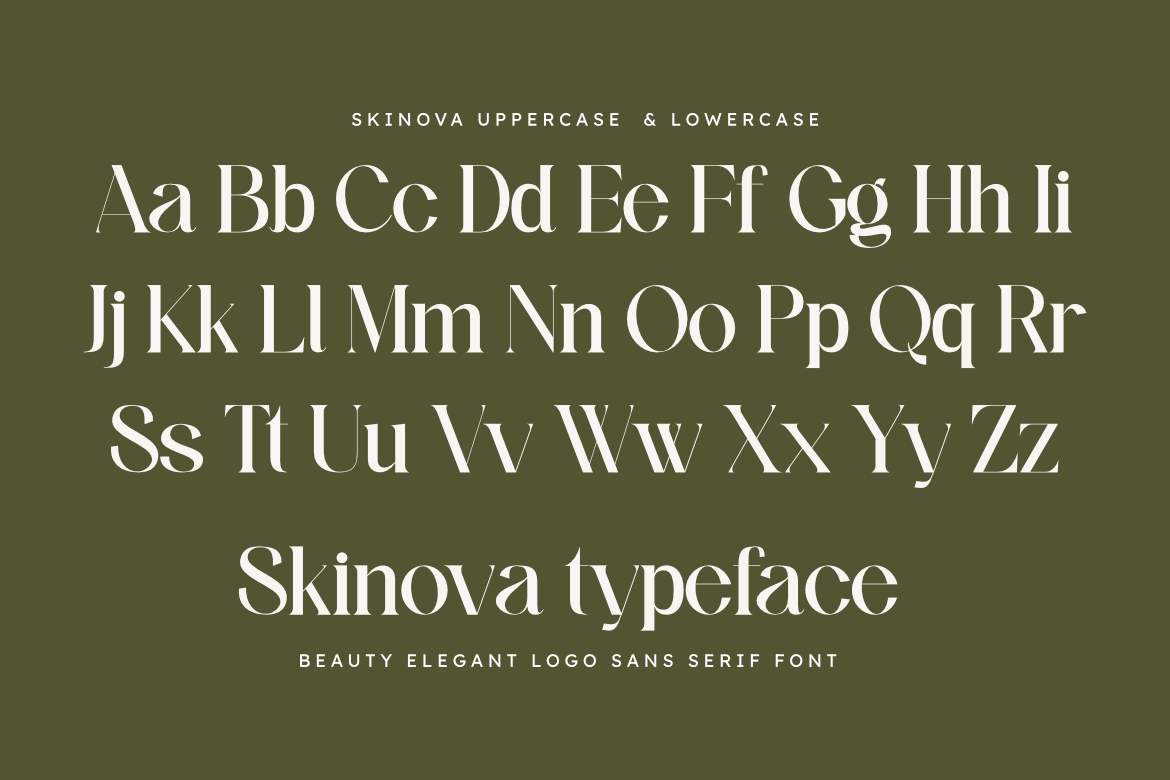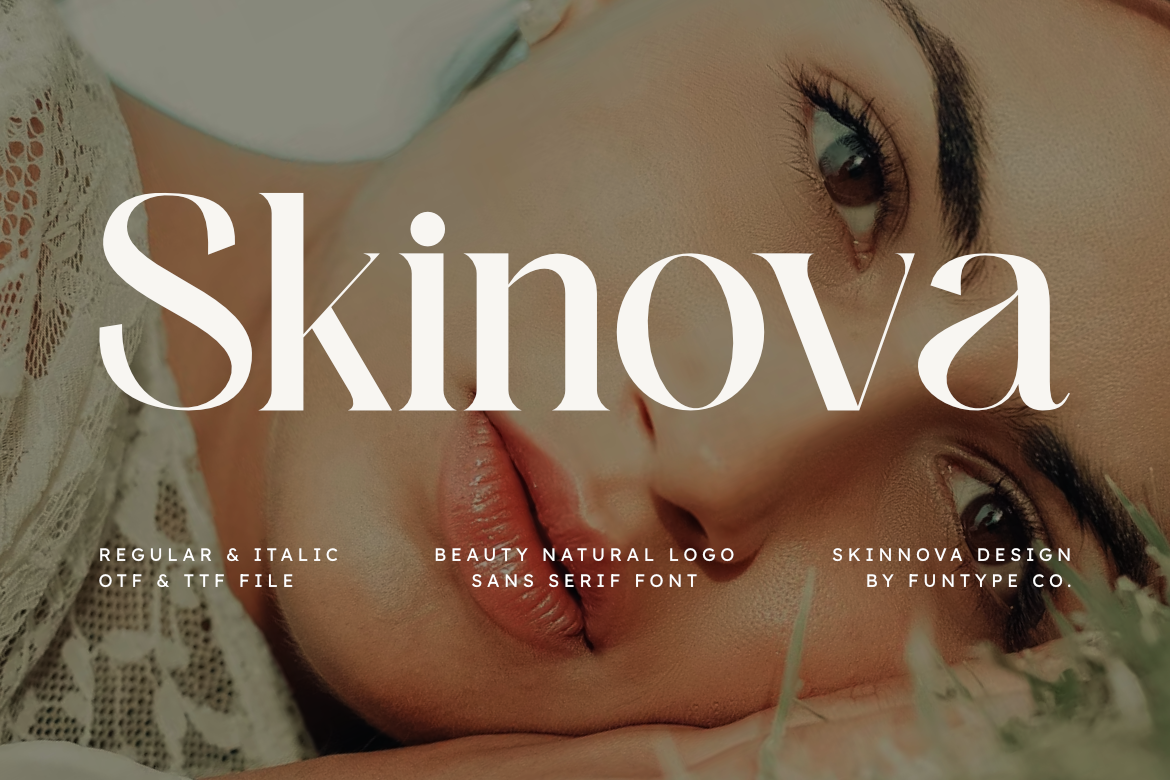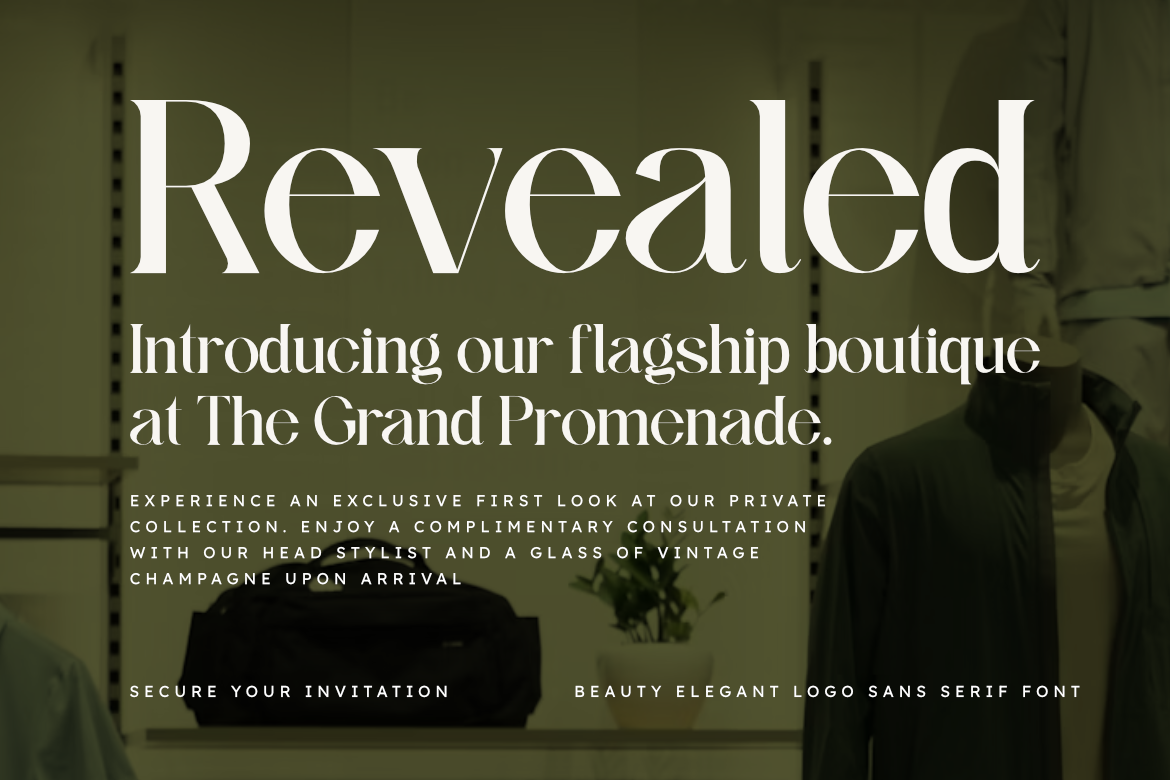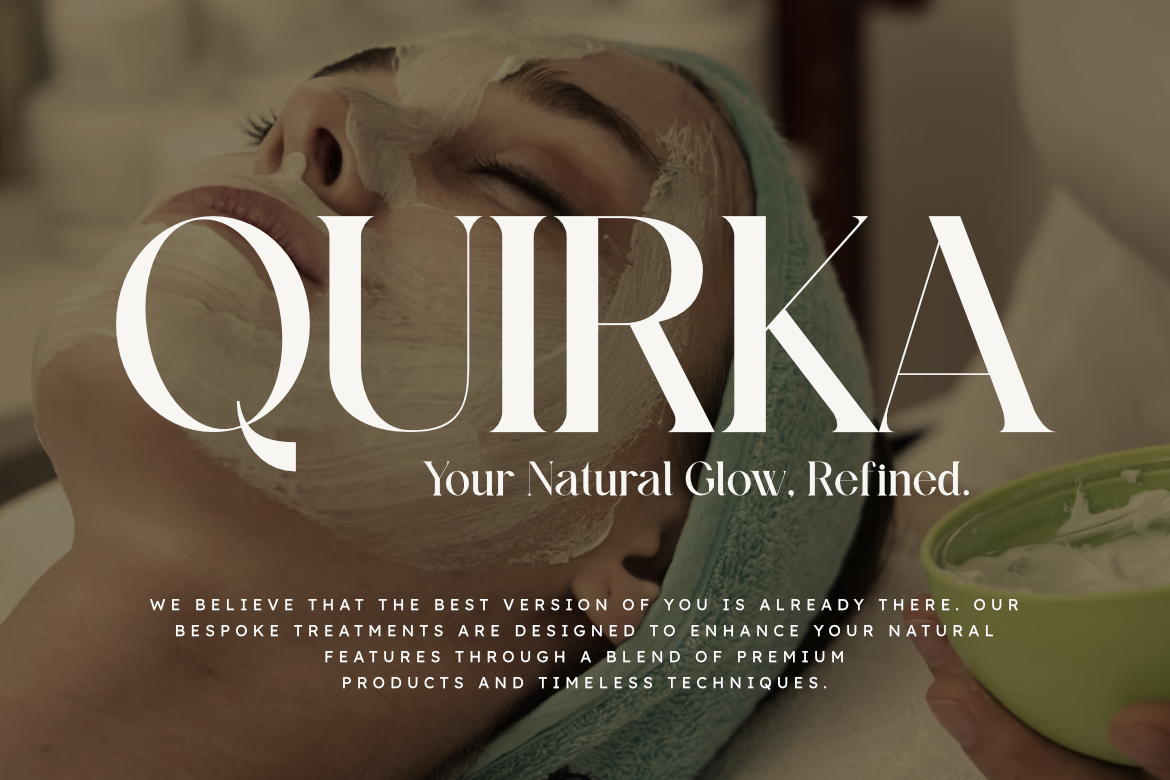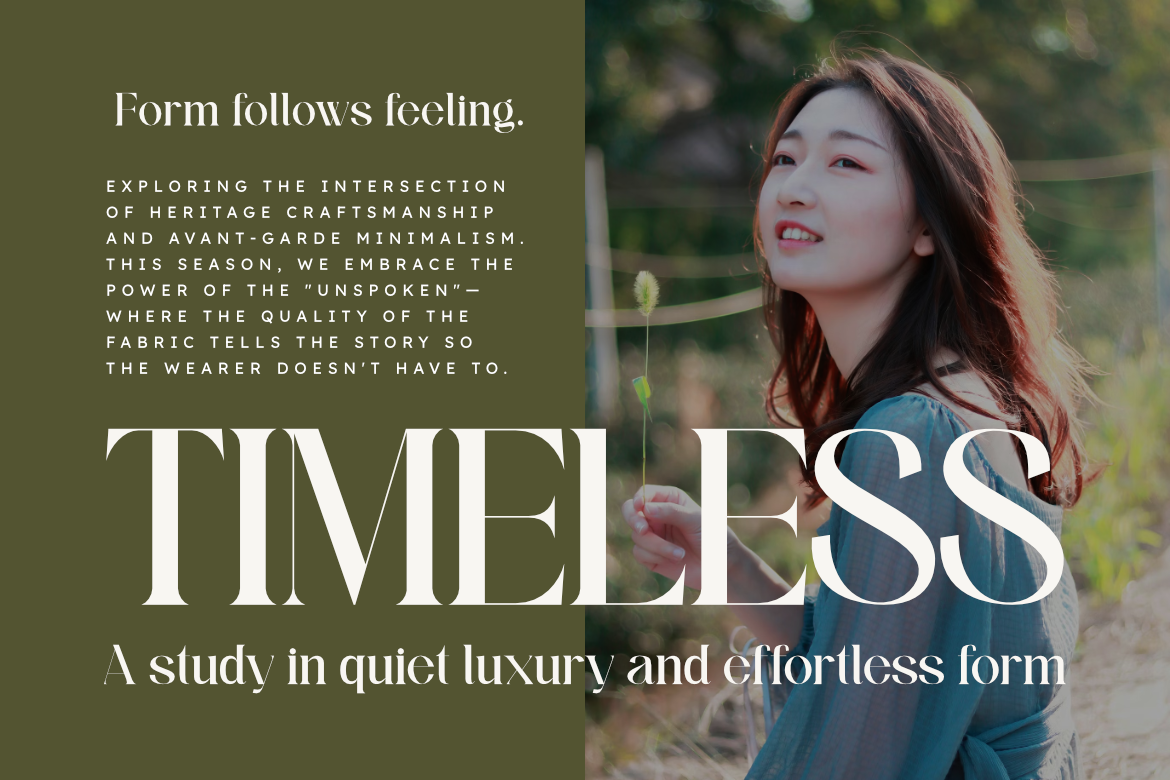
Skinova – Modern Beauty Sans Serif Font
Skinova is a sophisticated sans serif font designed with a blend of modern elegance and natural beauty. Characterized by its unique high-contrast strokes and soft curves, this typeface is specifically crafted to elevate luxury branding, fashion editorials, and cosmetic packaging.
The balanced proportions and clean lines make it highly versatile for both large-scale displays and smaller body text. Whether you are designing a high-end logo, a minimalist social media post, or a wedding invitation, Skinova provides a timeless aesthetic that feels both premium and approachable.
- Two Styles: Regular and Italic versions.
- Design Aesthetic: High-contrast, modern, elegant, and clean.
- Versatility: Perfect for logos, branding, magazines, headers, and digital advertisements.